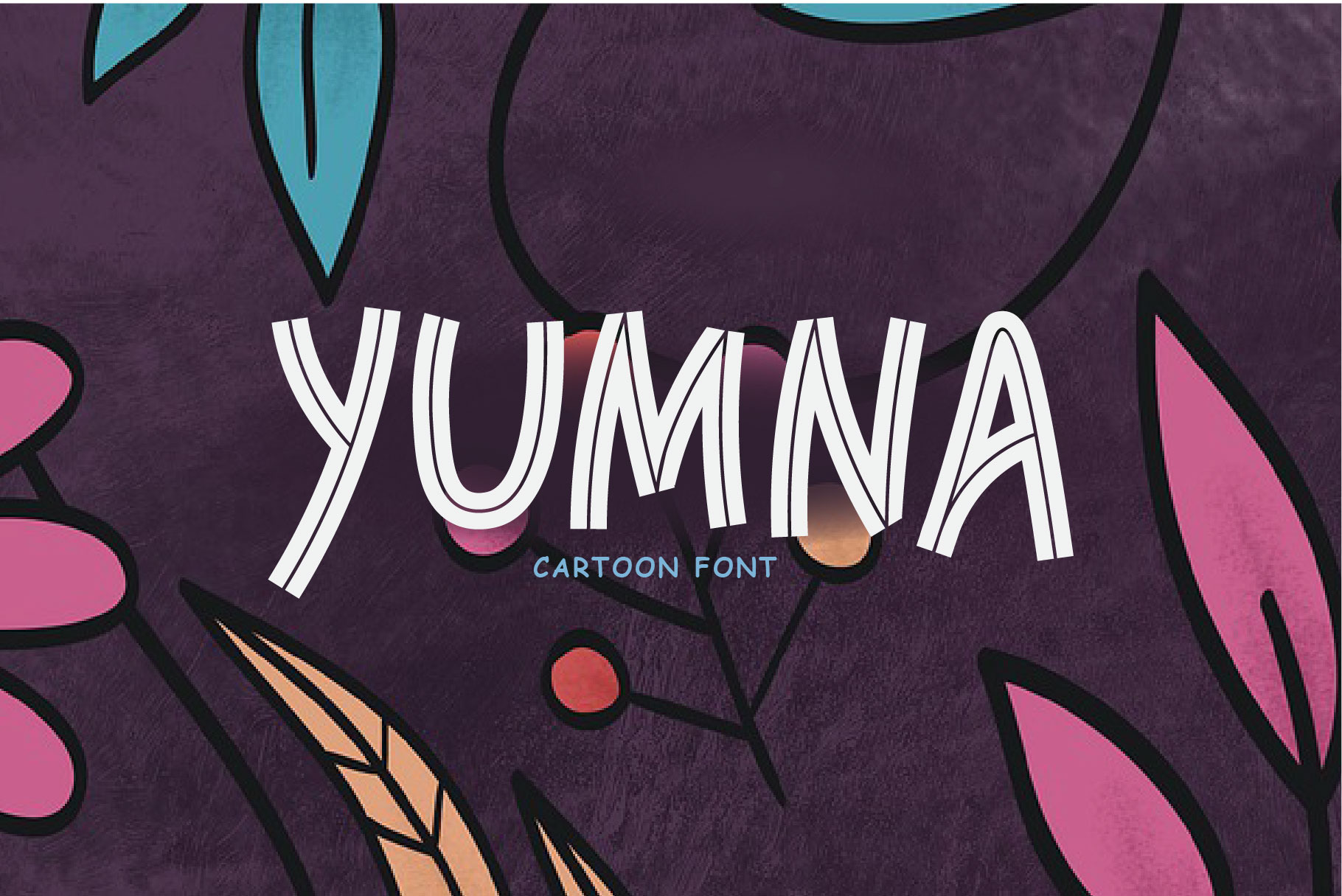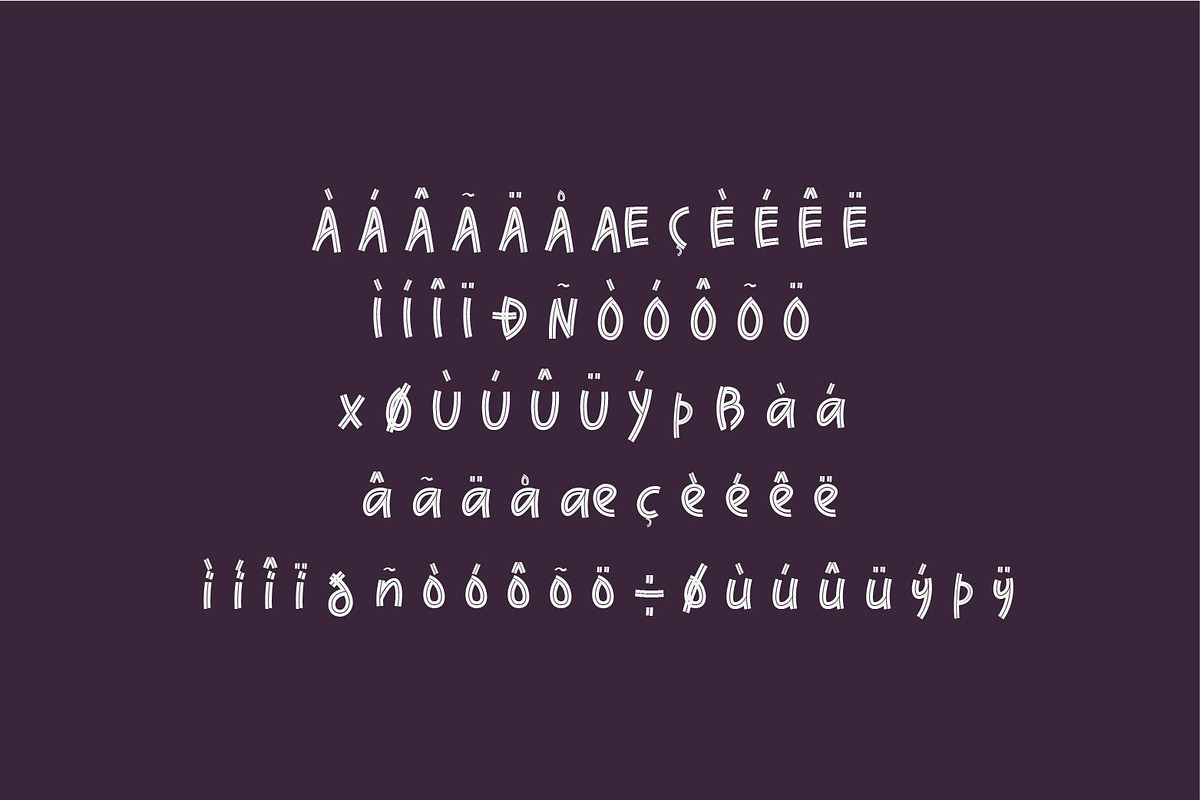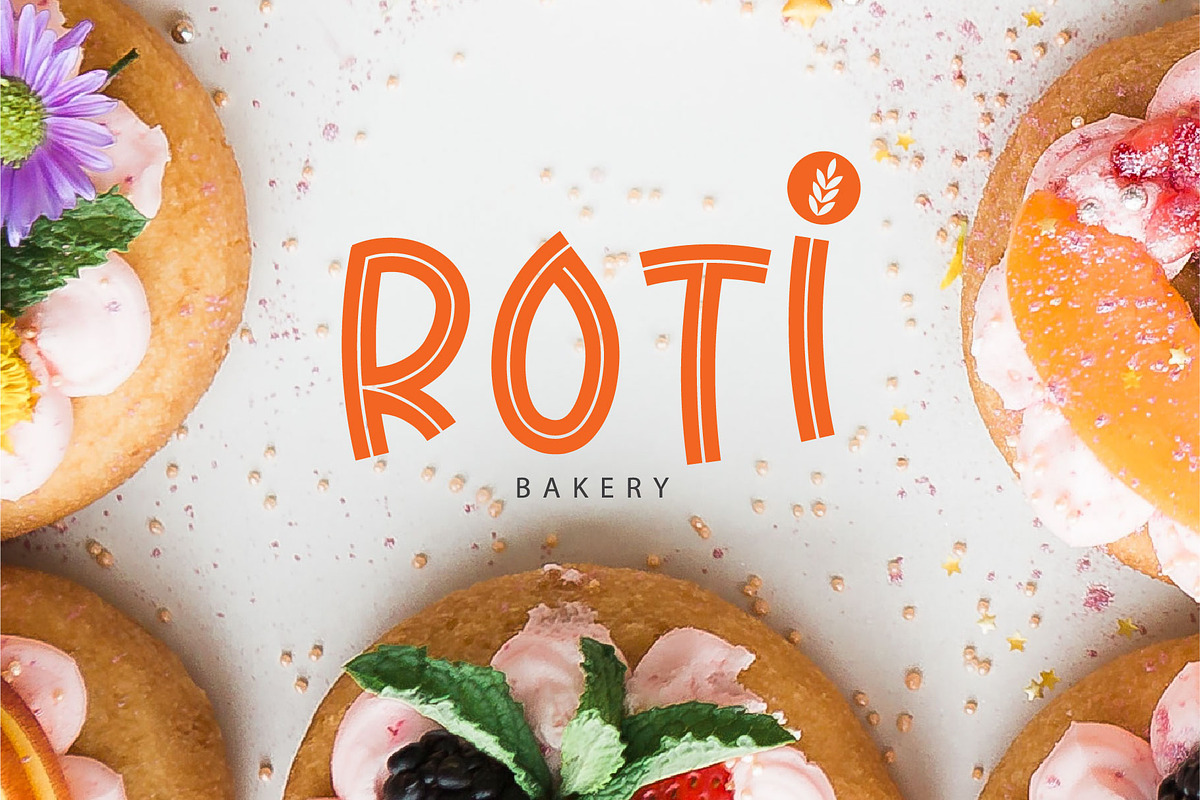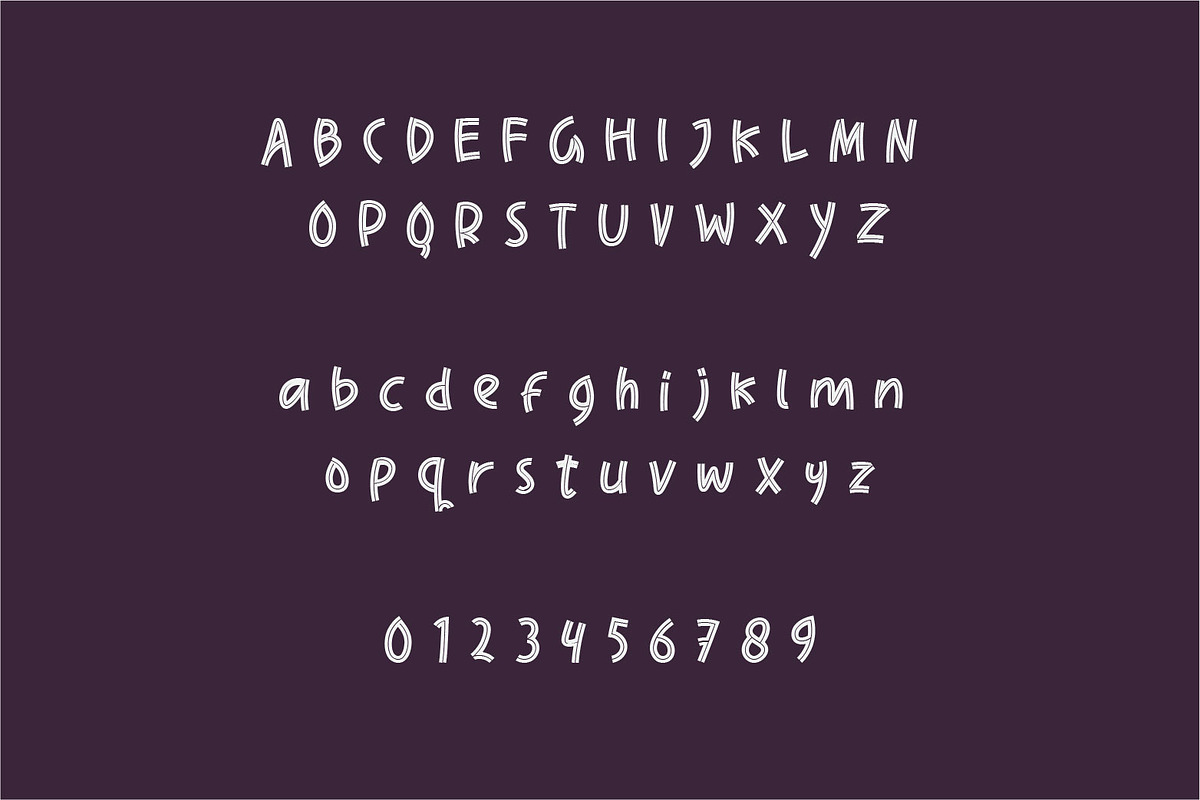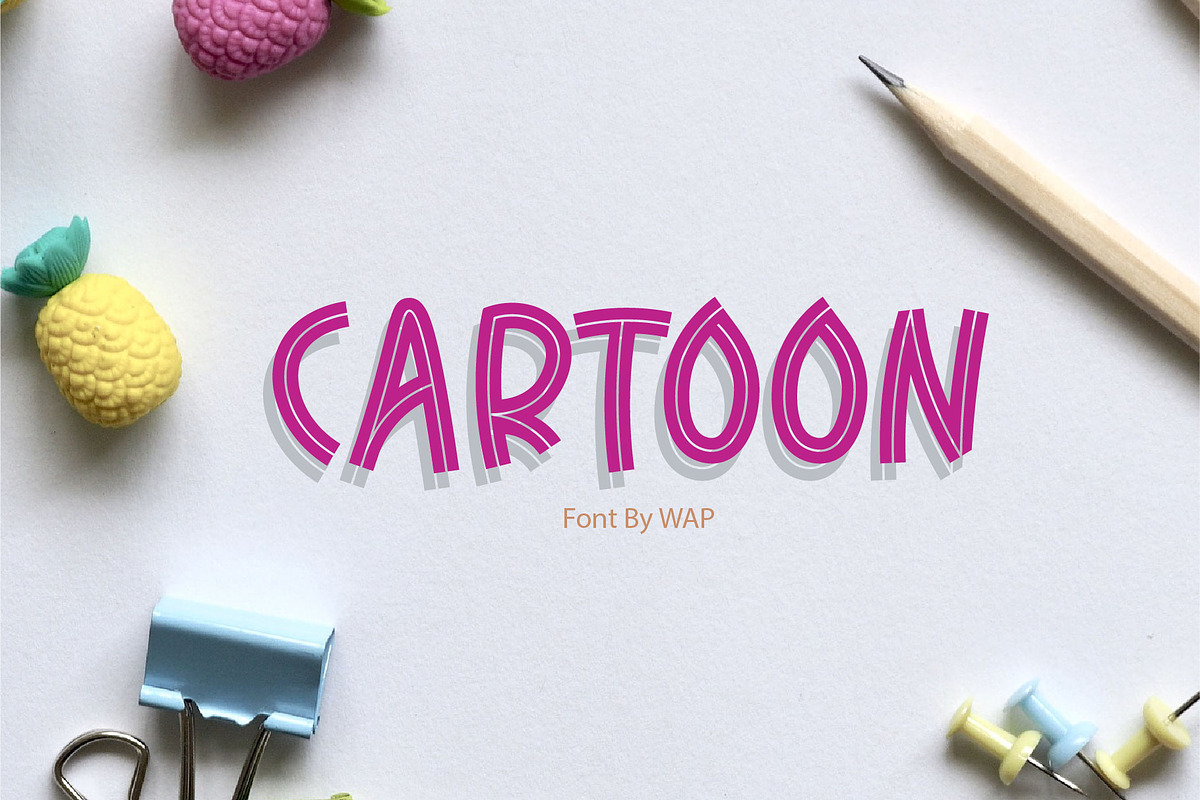
Yumna | Cartoon font
wap_std makes cute fonts for kids. I only remember some of the font characters. I think this new font is cute & fun for your fun projects. yumna is made with all my heart, I love it, and I hope you like it too.